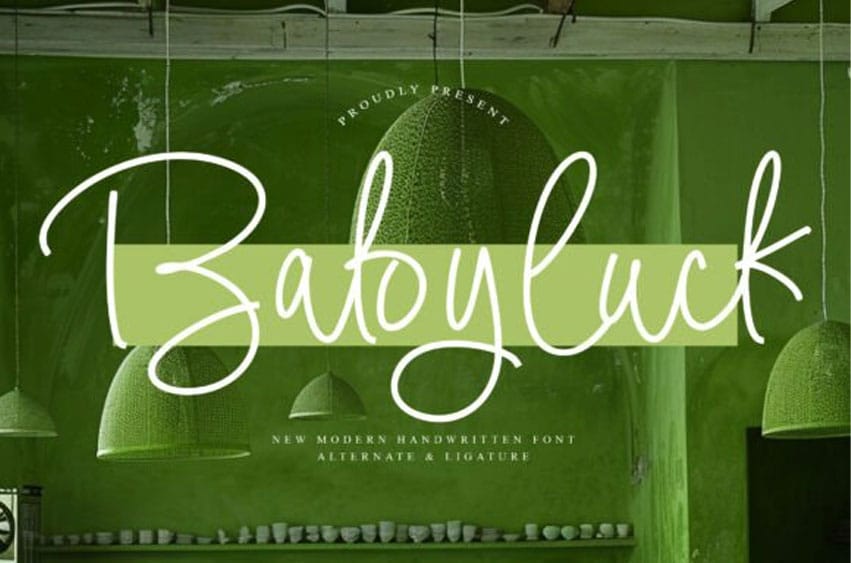
Babyluck Font is a charming handwritten font that blends bold loops with fluid motion, offering a playful yet refined look.
It includes stylish ligatures and alternates, making it perfect for logos, social media graphics, boutique branding, and DIY projects that need a personal flair.